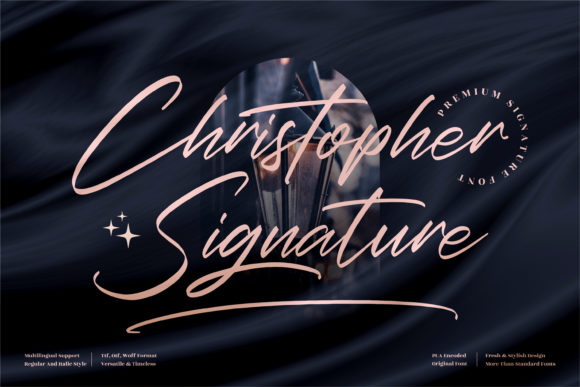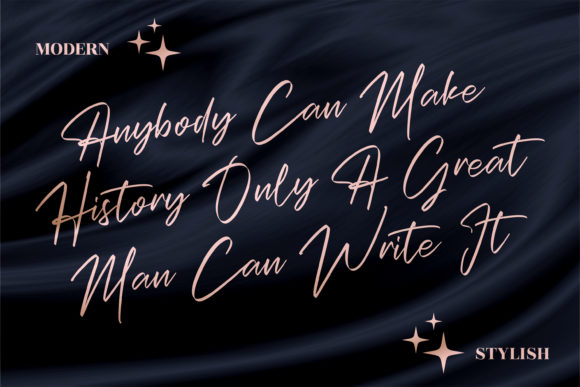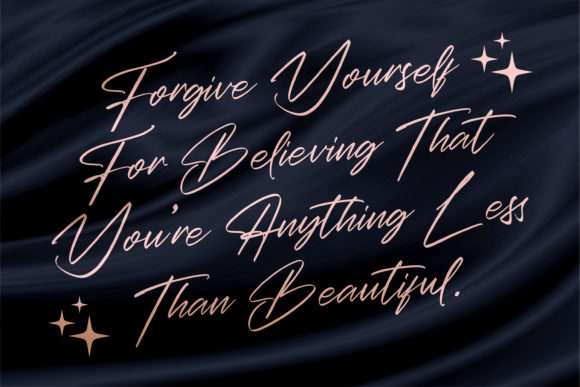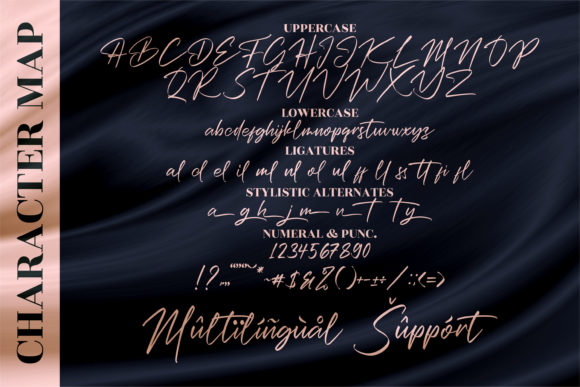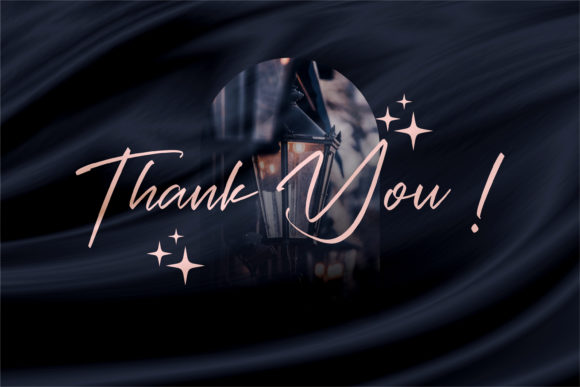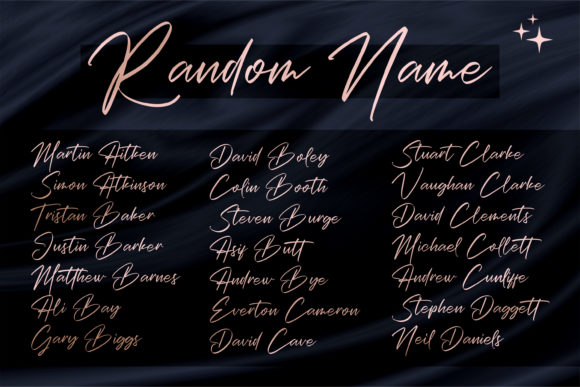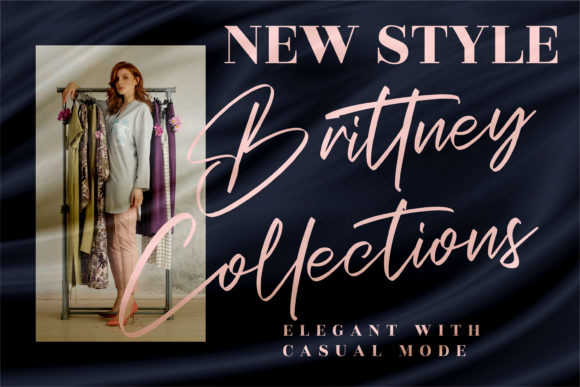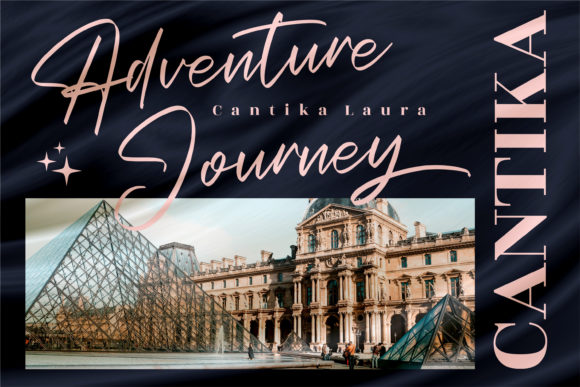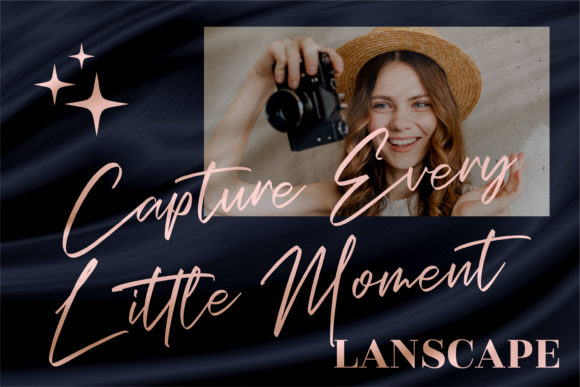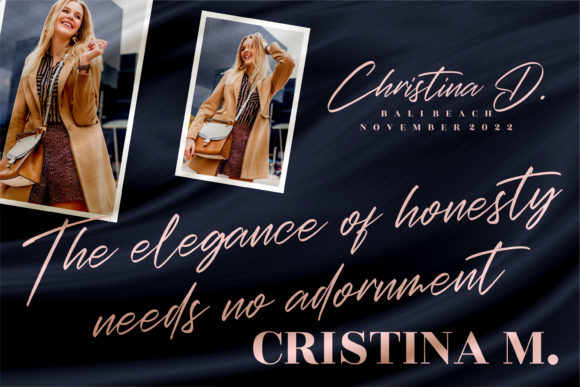
Christopher Signature Font
About Christopher Signature Font
Christopher Signature is a cool, flowing and beautiful script font. It looks stunning on wedding invitations, thank you cards, quotes, greeting cards, logos, business cards and every other design which needs a customized touch. This font is PUA encoded which means you can access all of the glyphs and swashes with ease!